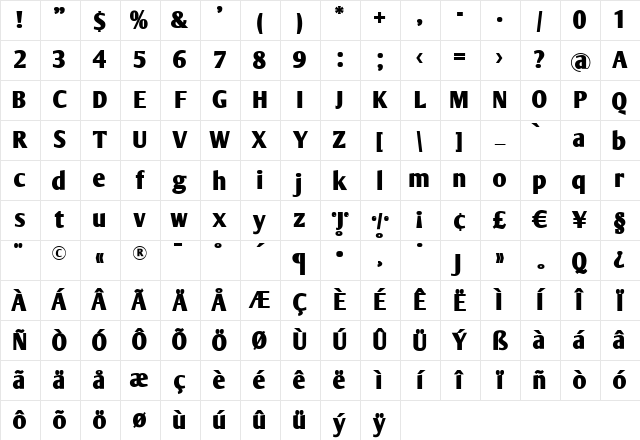
Complete ArmWrestler Bold glyph index. Displaying only characters natively supported by ArmWrestler Bold font.
ArmWrestler is a composed and adaptable typeface that performs quietly and consistently across a wide range of design contexts. Its bold stroke weight gives it real presence on the page.